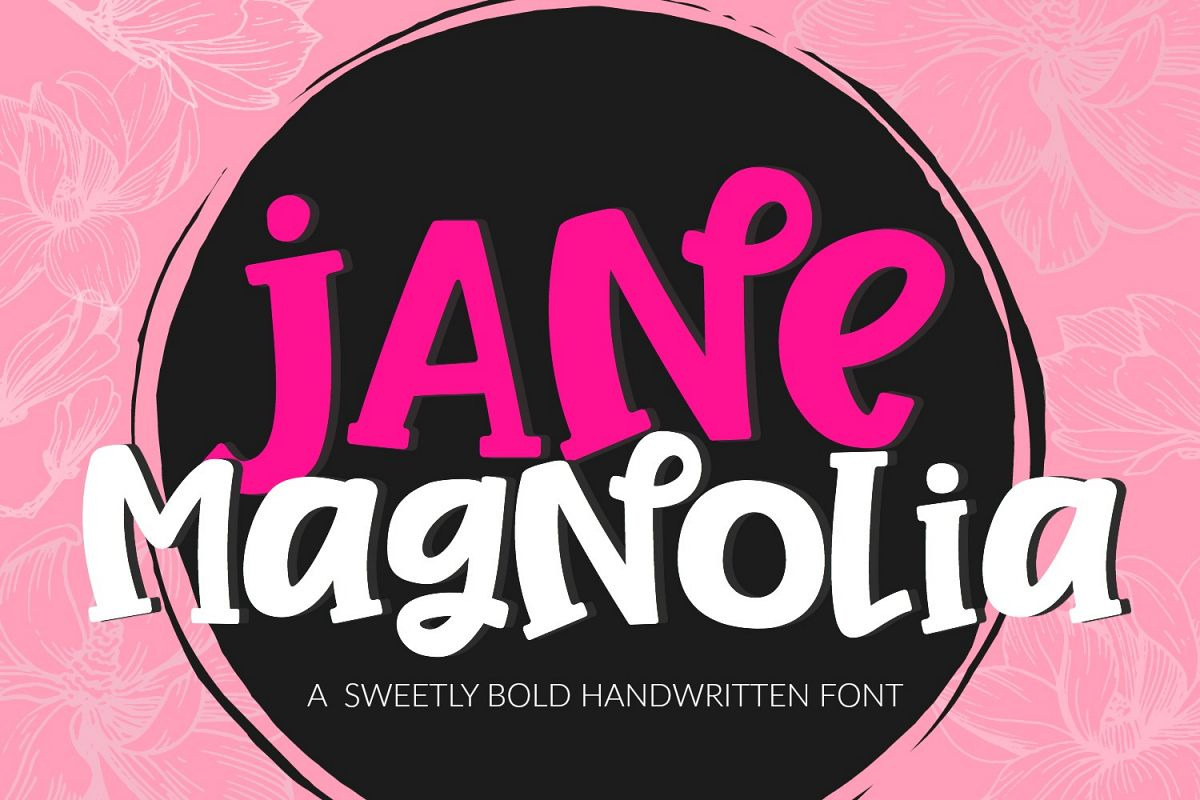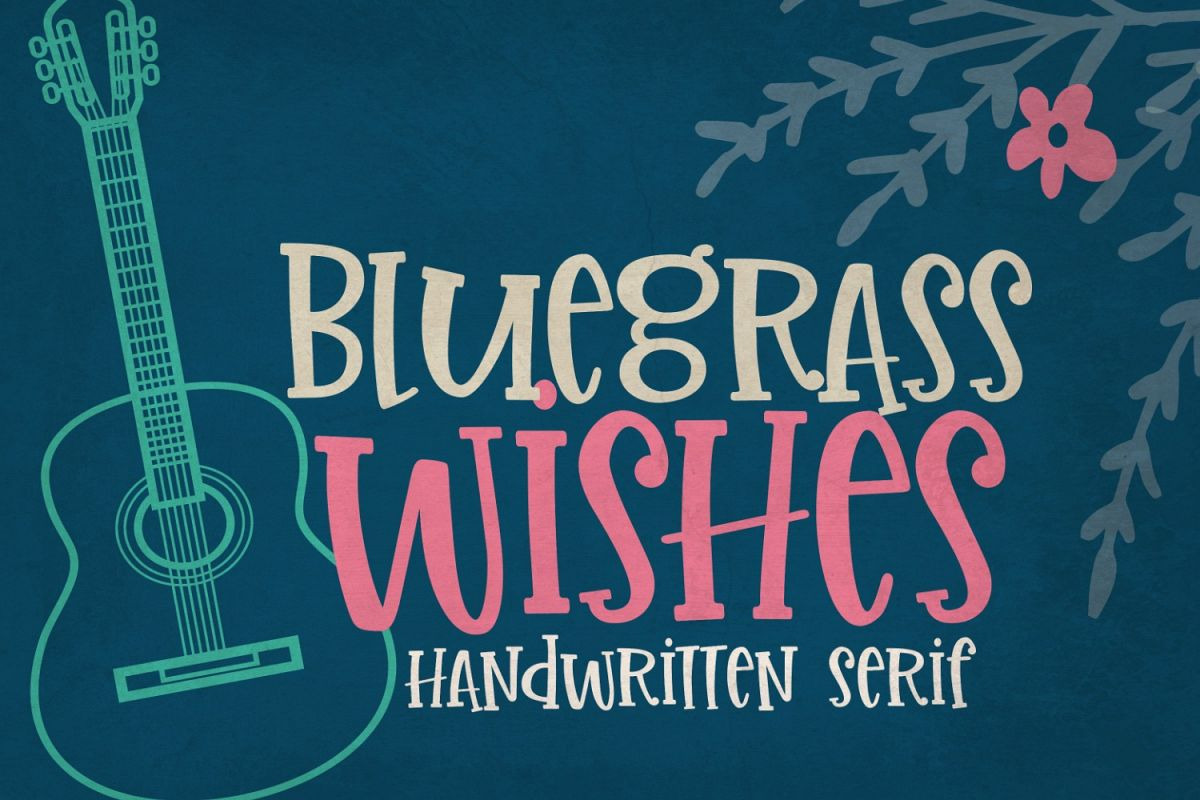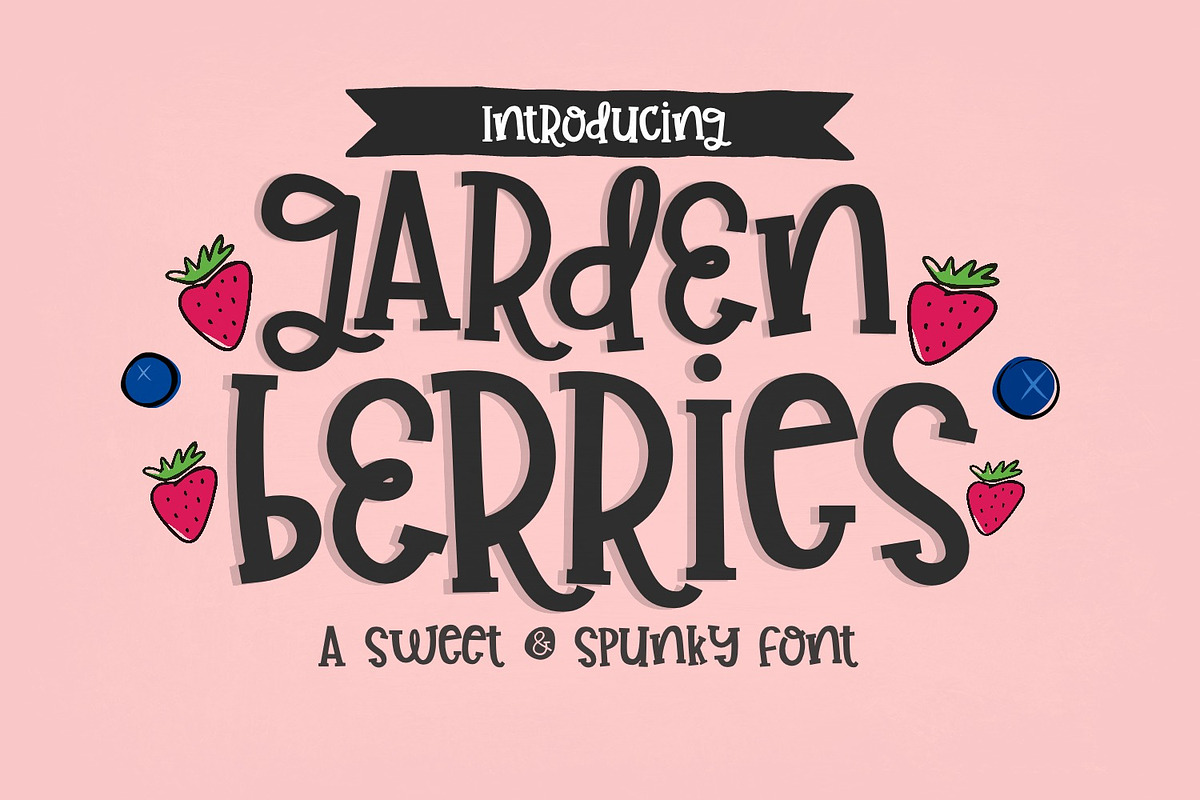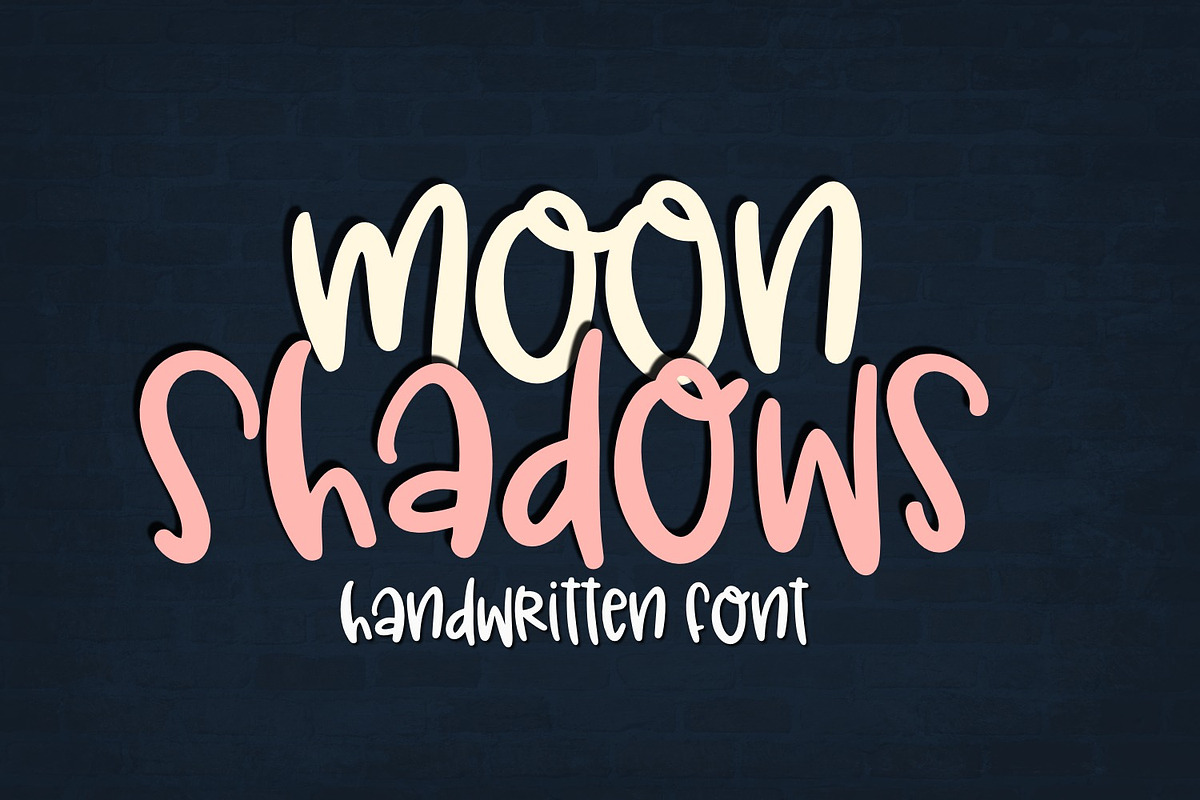
Handwritten Font Bundle
SS Jane Magnolia SS Moon Shadows SS Rebel Rouser SS Garden Berries SS Coconut Meringue SS Bluegrass Wishes (Regular & Solid)
Why Handwritten Font Bundle is worth a look
Handwritten Font Bundle by Sabrina Schleiger Design fits naturally into Branding, posters, packaging, typography.